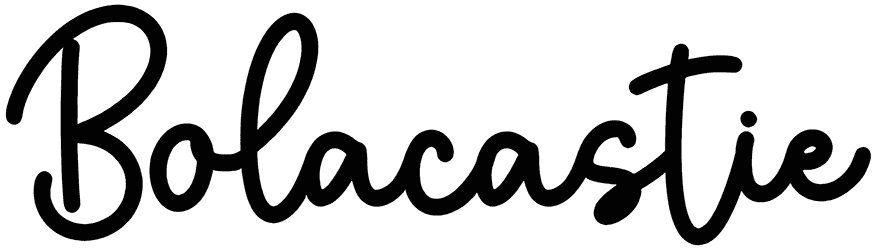
Bolacastie Font
When you get the chance to play with Bolacastie in your lettering, take advantage of its sweet handwritten style to make yourself heard better. With this cute cursive font at hand, no one can stop you from creating playful designs such as beach party posters and mugs, or designing any website or flyers where you want to set a summer theme. Besides, as a handwritten font, it knows how to add plenty of happy vibes to your work of art.